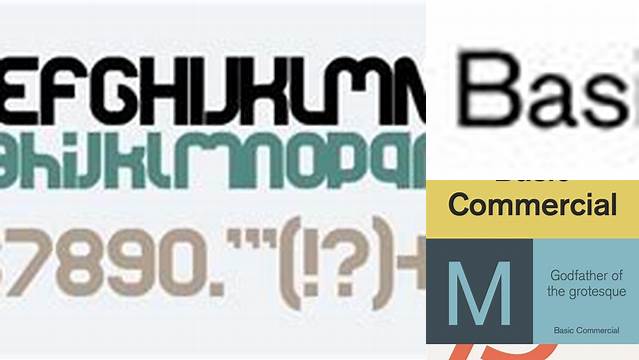
Alright, design enthusiasts, are you ready to jazz up your projects? You've come to the right place! We're diving deep into the world of typography, and today's star is the Basicmercial Font Family. This versatile font is perfect for a wide range of applications, from sleek website designs to eye-catching print materials. And the best part? You can snag a free download! Let's get started, shall we?
H2: What Makes the Basicmercial Font Family Special?
Guys, let's be real, there's a gazillion fonts out there. So, what sets the Basicmercial Font Family apart from the crowd? Well, first off, it's incredibly readable. Whether you're crafting a headline or a paragraph of body text, this font ensures your message is crystal clear. Its clean, modern aesthetic gives off a professional vibe, making it a great choice for businesses and personal projects alike. It is designed with a perfect balance between simplicity and sophistication, the Basicmercial font family offers a fresh and engaging look for any type of project. It strikes the ideal balance between readability and style, making it suitable for a wide range of applications. This versatility allows designers to use it in various projects, from websites and posters to branding and presentations. One of the standout features of the Basicmercial font is its extensive character set, including all the basic alphabet characters as well as some more rare characters, the availability of multiple styles and weights. With this, you can find the best option for your design. Not only that, the font also has a wide range of weights, allowing you to create visual hierarchy and make certain parts of your text stand out. The subtle variations in the strokes and letterforms of the Basicmercial font family give it an elegant and refined appearance. When used correctly, this can take any design project to the next level, leaving a lasting impression on the audience.
This font is designed to be extremely user-friendly. It's made to be as easy as possible to read and easy to integrate into your design projects. With its clear and legible appearance, it is suitable for various design projects. The font’s legibility is ensured by the well-balanced letterforms and carefully crafted spaces, which allow for easy reading in various situations. This feature is very important for any project where the focus is on information and communication. Plus, the Basicmercial font family provides a wide range of design possibilities. Its simple style allows you to create a sleek and modern look or combine it with other fonts to add contrast and personality to your designs. It can also be adapted to different styles, ranging from minimalist to bold designs, and this is what makes this font perfect to take on various design projects. In short, if you're looking for a versatile, legible, and stylish font that can take your design to the next level, the Basicmercial font is worth a try!
H3: Exploring the Different Styles and Weights of Basicmercial
Ready to get down to the nitty-gritty of the Basicmercial Font Family? It's not just one font; it's a whole family! This means you get a variety of styles and weights to play with, giving you the flexibility to create a unique look. You'll find everything from light and airy to bold and attention-grabbing. Imagine designing a website where the headings are in a strong, eye-catching bold weight, while the body text uses a lighter weight for easy reading. Or maybe you want to create a flyer with different weights to emphasize key information. The possibilities are endless, allowing you to bring any design vision to life.
Let's dive a bit deeper, shall we? The Basicmercial font family typically offers weights such as light, regular, medium, bold, and sometimes even extra bold. Each weight gives a slightly different personality to your text, allowing you to create contrast and hierarchy within your design. The light weight is perfect for delicate details or a subtle touch, the regular weight is a safe choice for body text, and the bold weights are great for headlines and important information that you want to pop off the page. You can experiment with different combinations of weights to create visual interest. Think about using a bold weight for titles and a regular weight for subtitles, or maybe even a medium weight for your body text to add some extra clarity and focus. The variety of styles is usually pretty extensive, covering everything from regular to italic, condensed, and expanded. These different styles allow you to express creativity and adapt to any design theme.
So, whether you're working on a website, a printed brochure, or anything in between, the multiple styles and weights of the Basicmercial font family offer the creative freedom you need to make your designs shine.